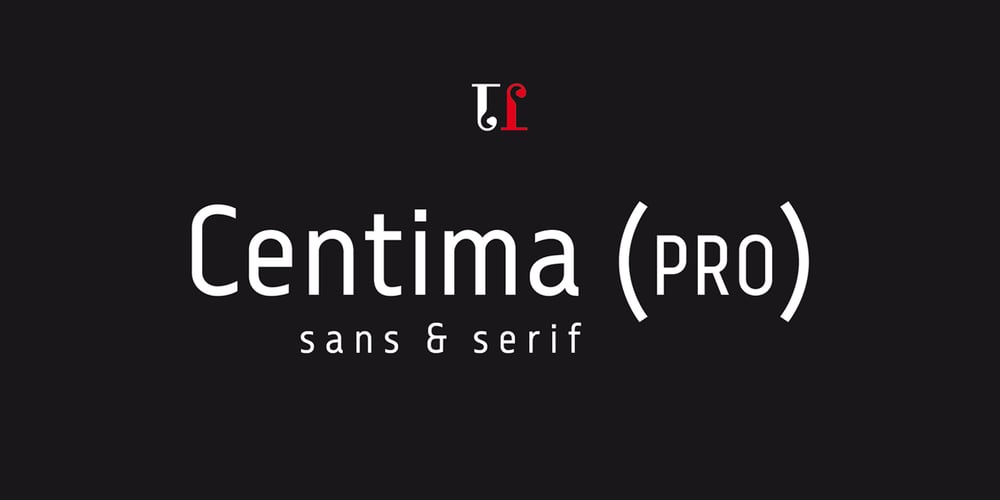
Centima Pro
Centima Pro font
Centima Pro Font Family was designed by Ramiz Guseynov and published by TipografiaRamis. Centima Pro contains 12 styles and family package options. Centima Pro is an enhance development of Centima – a geometric Sans Serif typeface, released back in 2011. Centima Pro family consists of two sub-families Sans and Serif fonts.Centima Sans – an upgraded version of Centima, with careful refinements to glyph shapes and extension of glyph amounts, which enabled support of Cyrillic languages. A new extended sub-family Centima Serif have been added to the Centima Pro family.This typeface is released in OpenType format with some OpenType features.